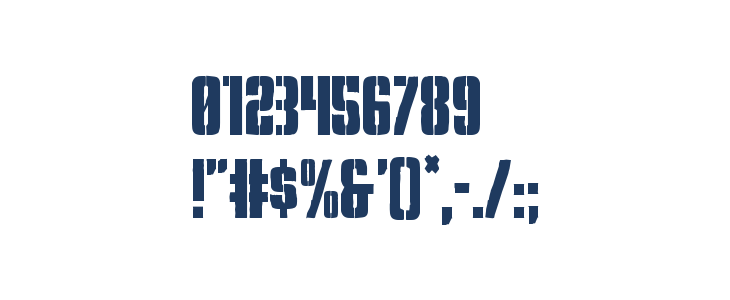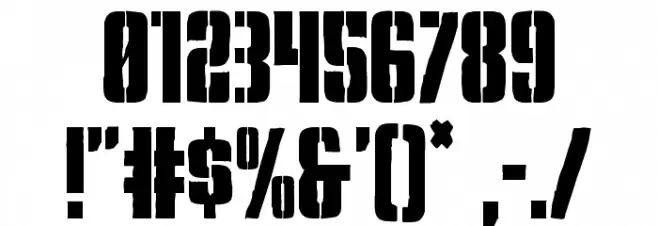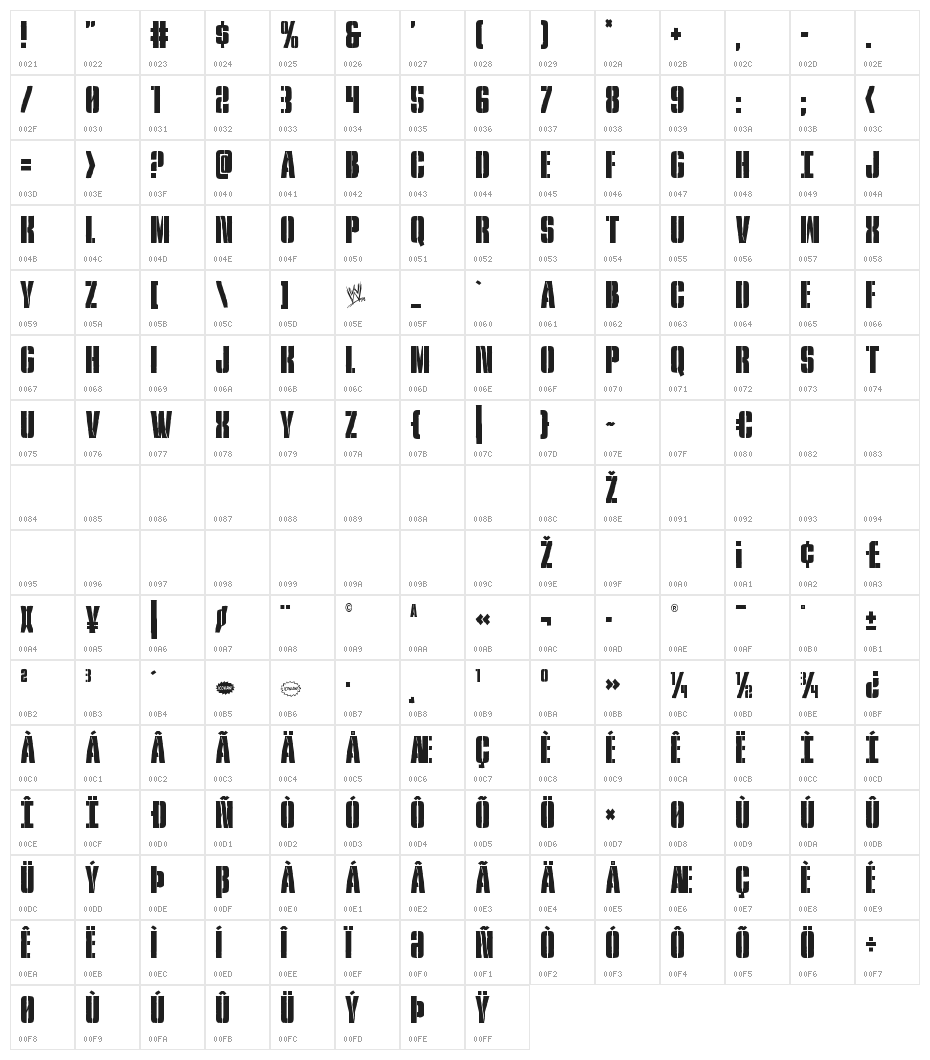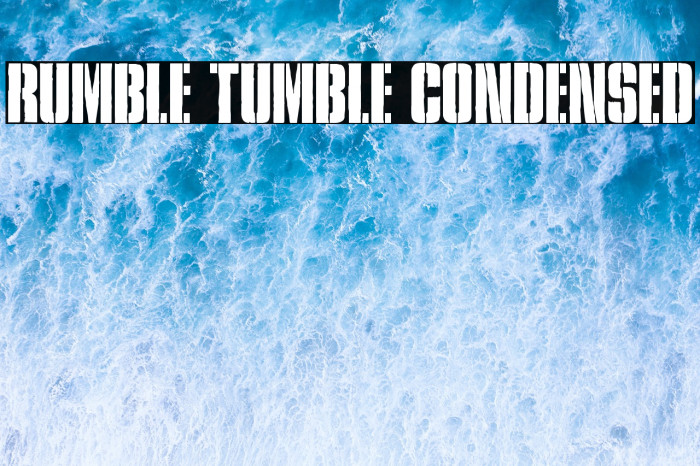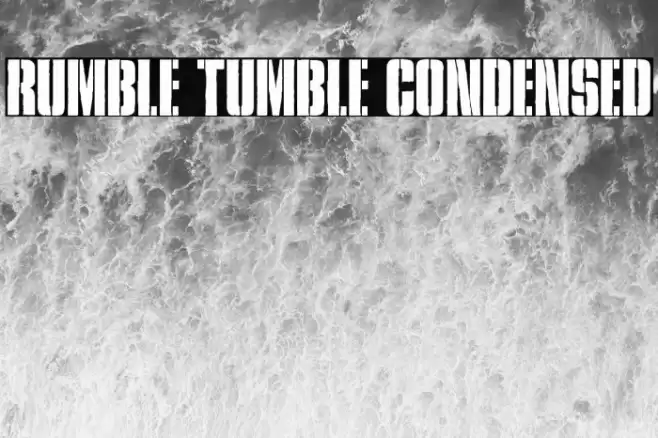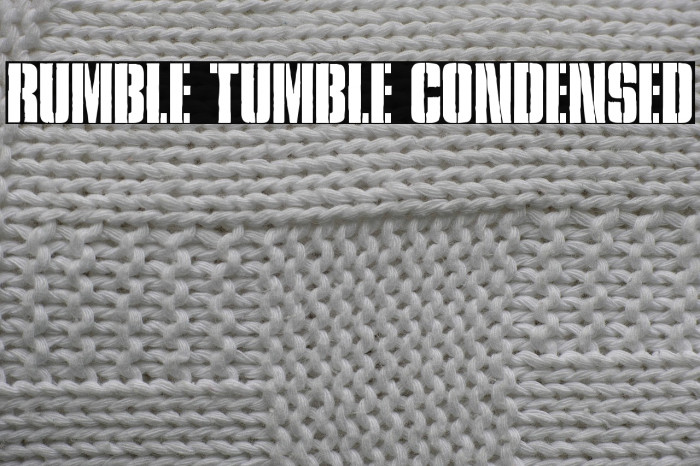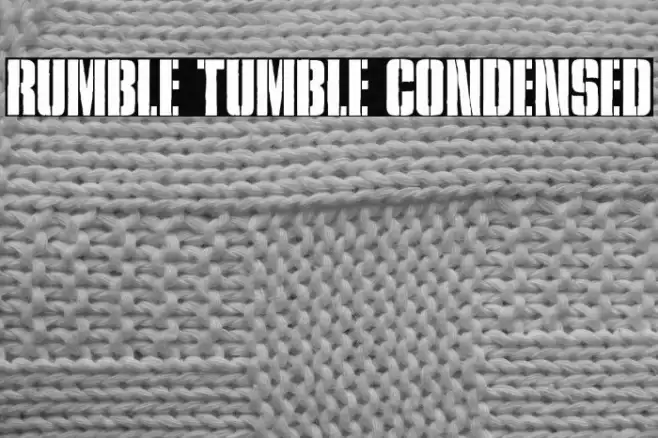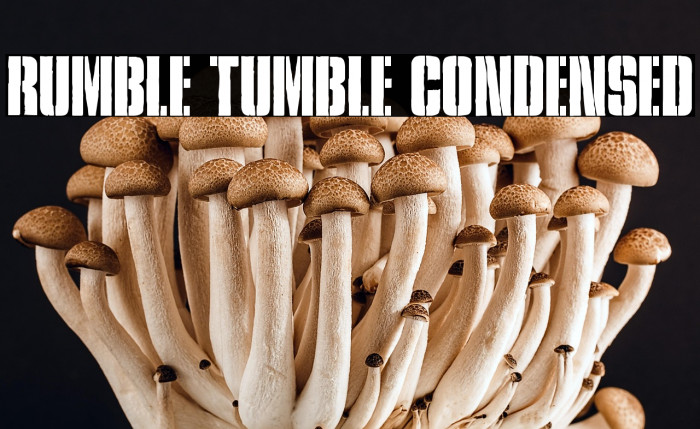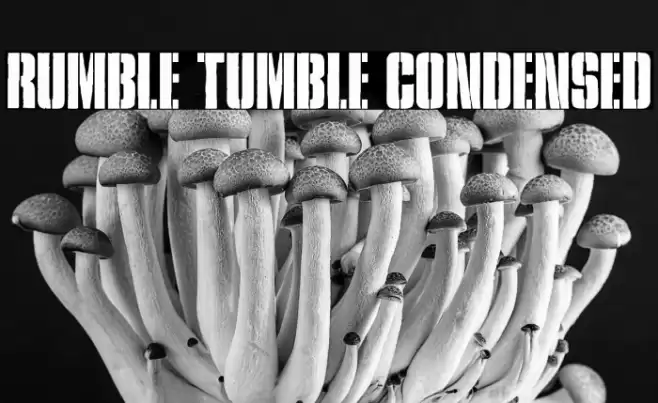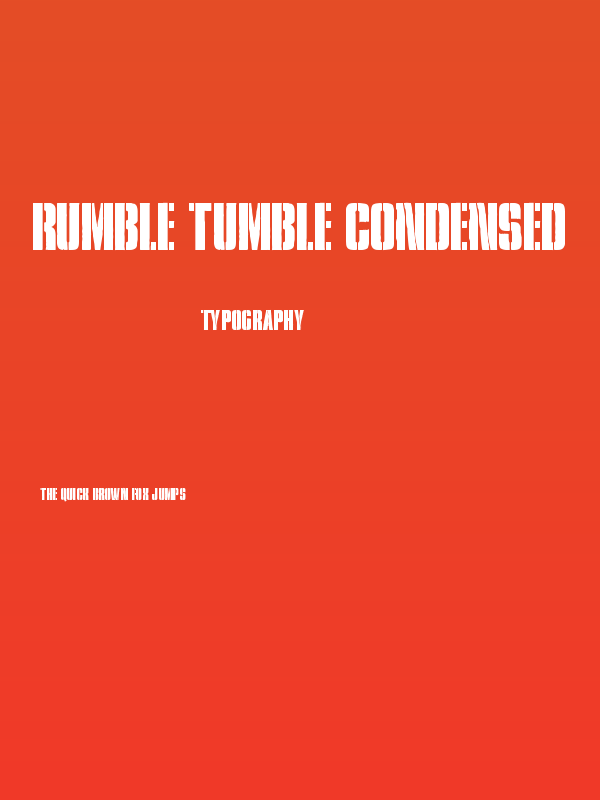
Rumble Tumble Condensed Font
Rumble Tumble Condensed Description
This font features a bold, condensed style with a distressed texture, giving it a rugged and impactful appearance. The uppercase letters are prominent and commanding, while the numbers and special characters maintain the same boldness and texture. The font's design is reminiscent of vintage posters or industrial signage, with its thick strokes and slightly irregular edges adding to its character. The condensed width allows for efficient use of space, making it suitable for headlines or titles where a strong visual impact is desired.
| Proposed Projects | Ideal for vintage-themed posters, industrial design projects, bold headlines, and branding that requires a strong, rugged aesthetic. |